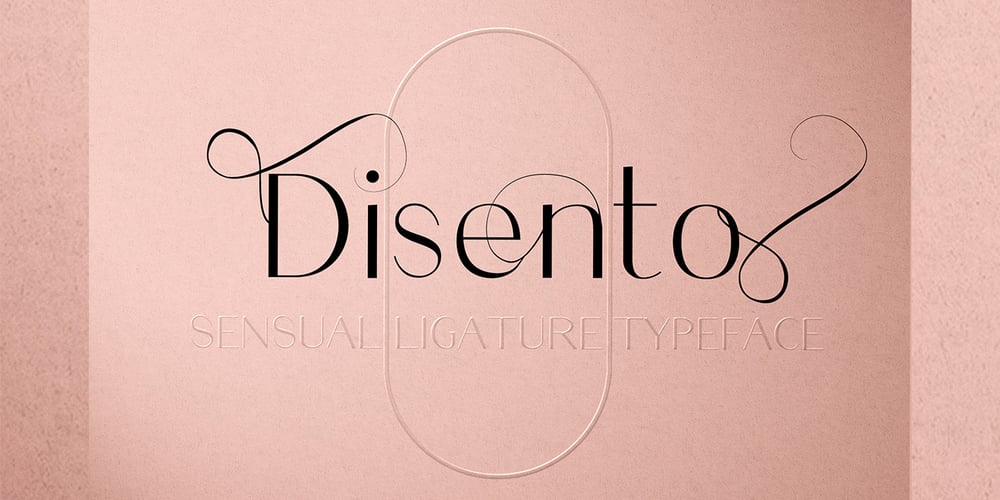
Disento Font Family was designed by Elena Joland and published by LABFcreations. Disento contains 1 styles and family package options. Disento Sensual Ligature Sans Serif Typeface . Sexy & elegant sans serif font is ideal for creating logon and Brand Identities. With large variations of original ligatures and a lot of sophisticated AlternatesIt works perfect for creating stylish logos, striking editorials, invitations, graphic quotes, and more.Uppercase Characters Lowercase Characters Discretionary LigaturesMultilingual support for various languagesHOW TO GET ACCESS TO ALTERNATE CHARACTERS & LIGATURESOpen glyphs panel:In Adobe Photoshop go to Window – glyphsIn Adobe Illustrator go to Type – glyphs Microsoft Windows apps -generally propose a Font menu by right-clicking on a selected text. This Font menu lets you setup several font features, in particular ligatures.”In Word 2010 or newer for Windows, press Control-D to open the Font dialog box, and select the Advanced tab. Check the option to “Use Contextual Alternates,” then set Ligatures to “All,” and click OK.”Follow me by Instagram: @labfcreations